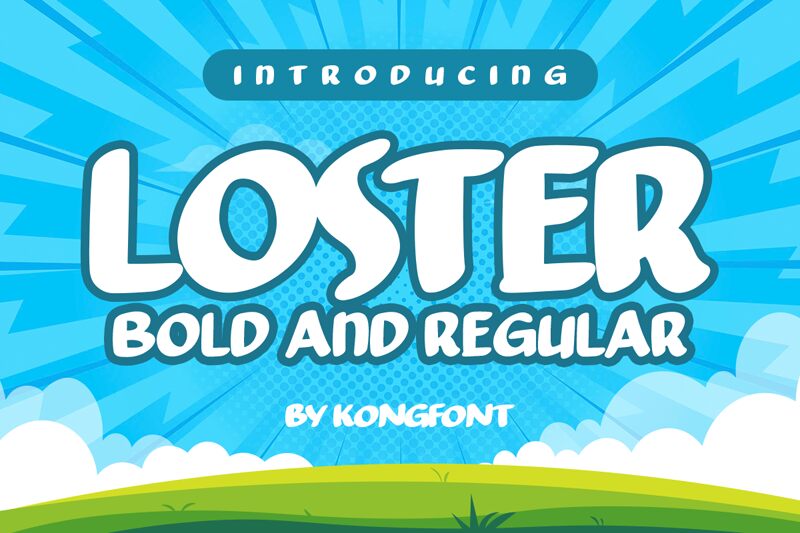
Loster font by Kong Font is a free typeface with a cartoon style and a modern touch. This whimsical and dynamic display font has a smooth and inviting structure with rounded bubbles that give it its distinct cheerful personality. A great choice of fonts to implement in modern designs and applications, especially those with a cheerful and casual appeal.
Use Loster in children’s products such as coloring textbooks, cartoon posters, or board games. It’s perfect for fun birthday invitations and decorations, scavenger hunt related designs, coloring apps, animations, and branding projects for kid-caring brands.